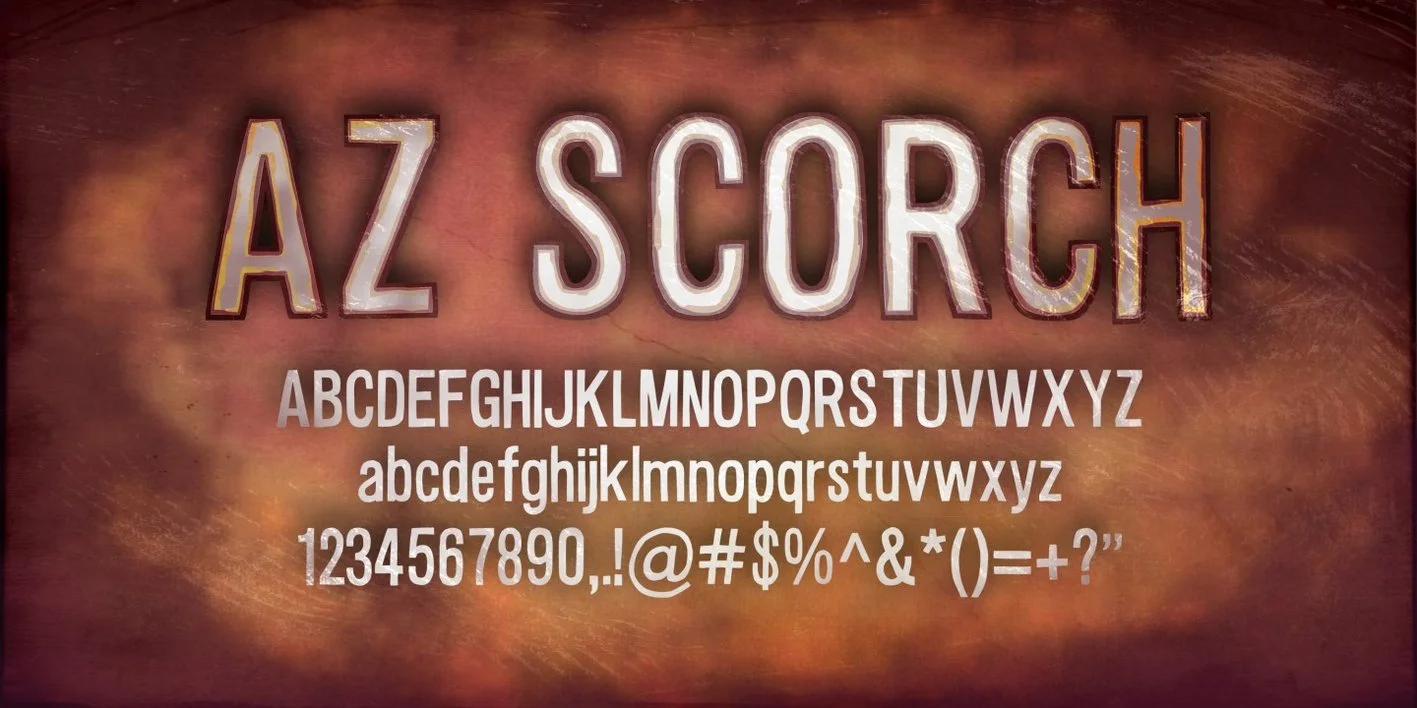
AZ Scorch Font
A good typeface communicates tone before a single word is read. AZ Scorch achieves this through the kind of restraint that lets content lead. The typeface brings a versatile sensibility to a broad range of creative disciplines, with versatility across print and screen contexts that holds up whether the work is print-first or screen-first.
In practice, AZ Scorch proves particularly effective for annual reports, brand identity systems, logo design, packaging design, advertising campaigns. Designers reaching for it find that the type decisions feel resolved rather than laboured — a useful quality when client timelines are tight.
The range of applications extends to editorial layouts, web design, product labels, social media graphics. That breadth is deliberate: the proportions and spacing were stress-tested across a wide range of mock briefs before the typeface was finalised.
Graphic designers working on identity systems find AZ Scorch a reliable choice for projects that demand both personality and restraint. The design avoids the self-conscious quirkiness that dates quickly, settling instead for considered distinctiveness that holds up over time.